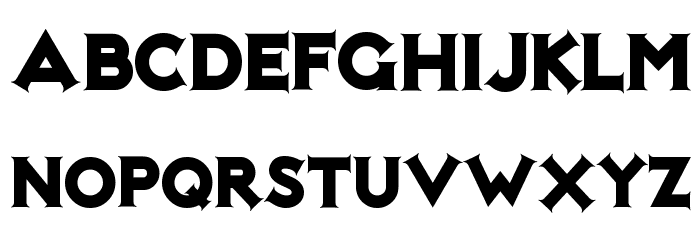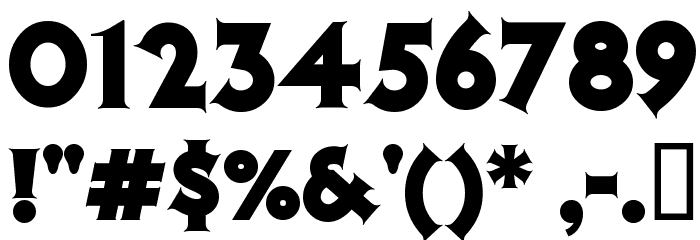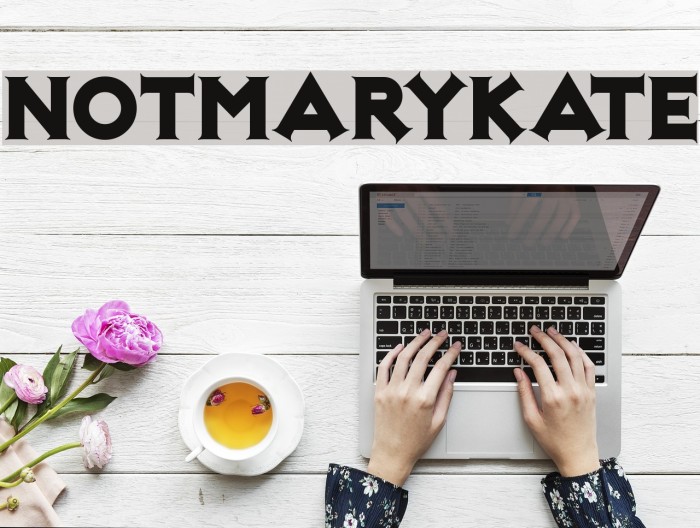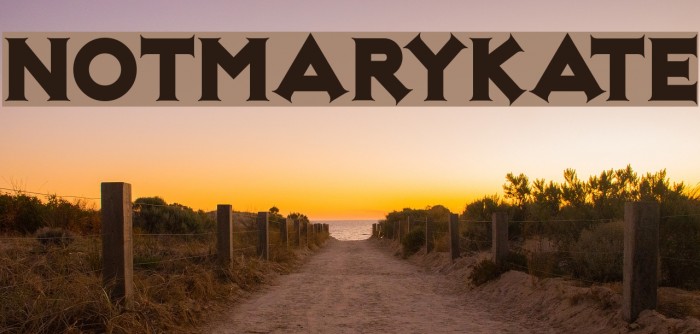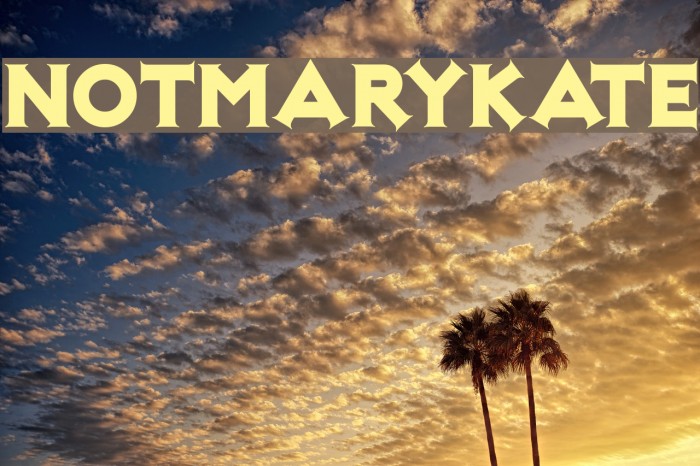
NotMaryKate Font
This font exhibits a bold and striking design with sharp, angular serifs that give it a distinctive and edgy appearance. The characters are uniformly bold, with a consistent stroke width that emphasizes their strong presence. The uppercase letters are particularly commanding, while the lowercase letters maintain the same boldness, ensuring readability and impact. The numbers and special characters follow the same design principles, making them cohesive with the rest of the typeface. This font's unique style is both modern and slightly gothic, making it suitable for projects that require a bold statement.
A bold, angular serif font with a modern, edgy style.
- Proposed Projects: Ideal for branding, posters, headlines, and any design that requires a strong visual impact.
- Overall Style: Modern, Gothic